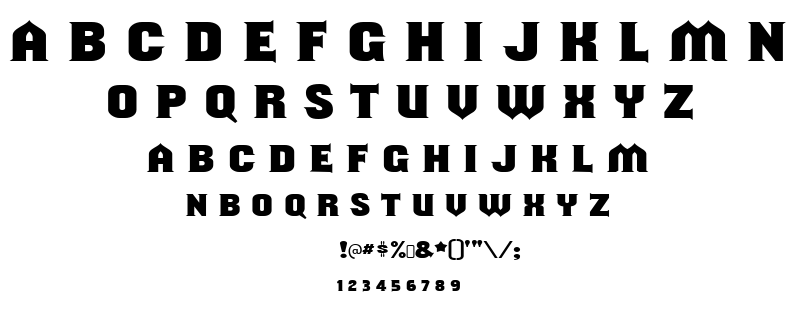
Should’ve Known
Should’ve Known Font
Should’ve Known is an alternate-universe horse-opera headline honker. Don’t forget to read the files inside the zip for details. Updated in 2012.